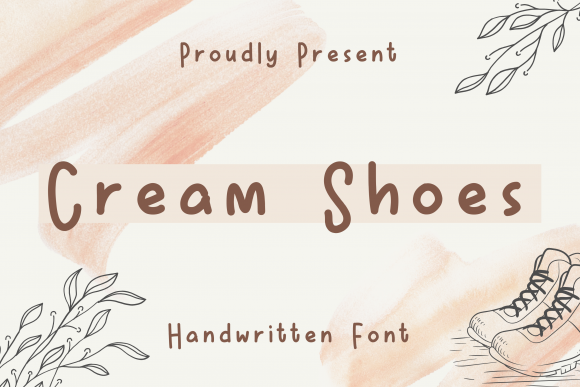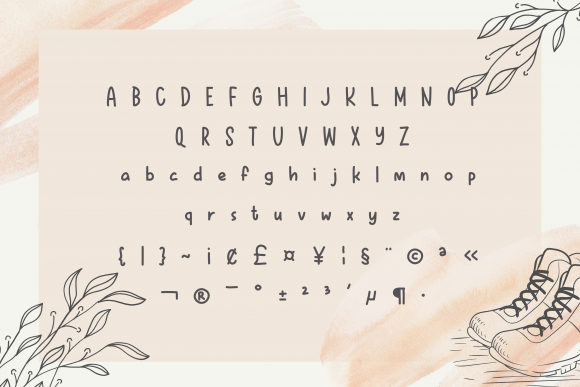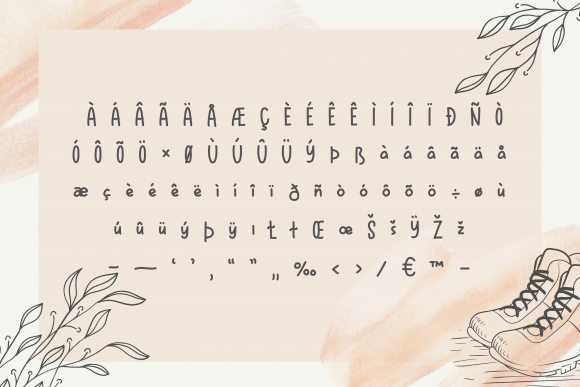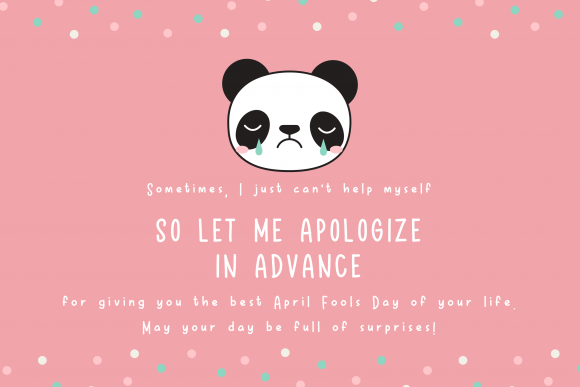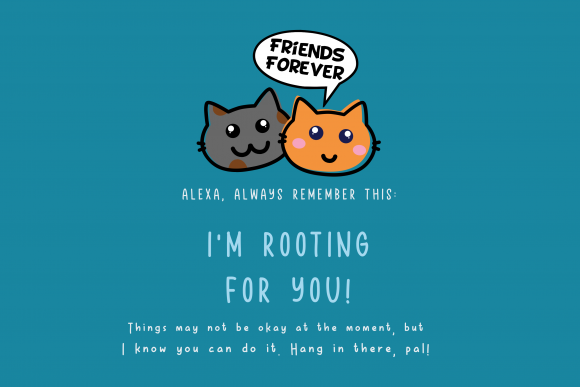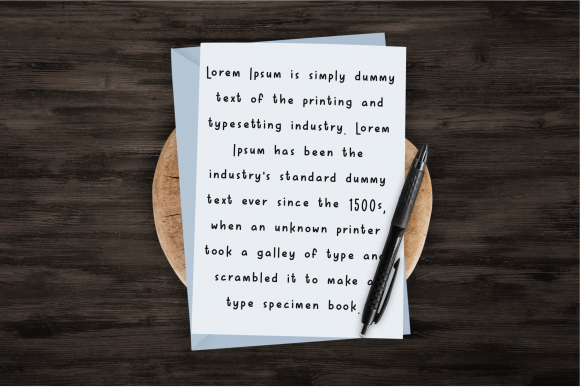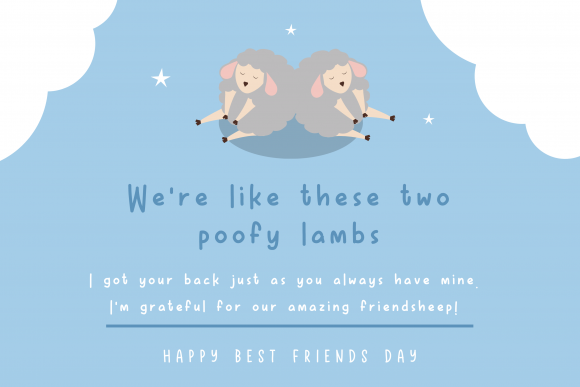
Cream Shoes Font
About Cream Shoes Font
Cream Shoes is a simple and dainty handwritten font. Its natural and unique style makes it incredibly fitting to a large pool of designs. Use this font for your designs and explore its endless possibilities.